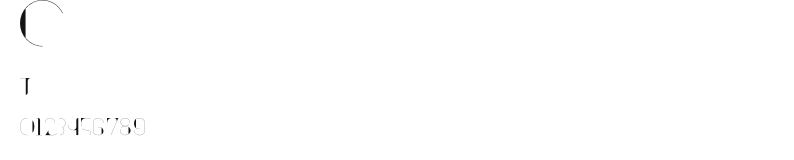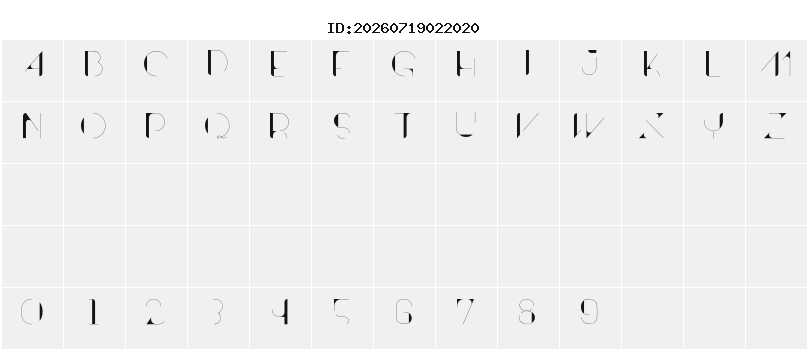
Contrasto Preview
• Font Name: Contrasto
• Font ID: 1.000;PYRS;Contrasto
• Full Font Name: Contrasto
• Version: Version 1.000;PS 001.001;hotconv 1.0.56
• PostScript Name: Contrasto
• Character Count: 224
• Designer: André Uenojo
About Contrasto.otf
Contrasto.otf is a modern, elegant sans-serif font designed for ultimate readability and visual harmony. Perfect for branding, headlines, web design, and print materials.